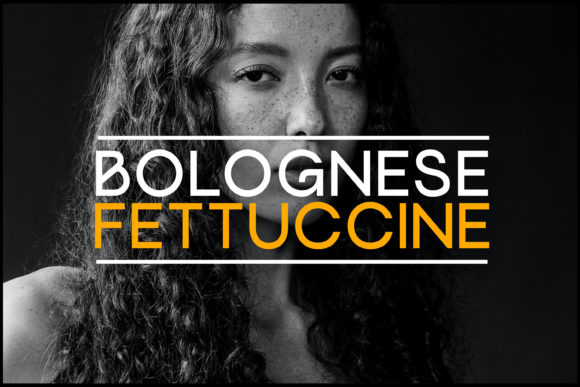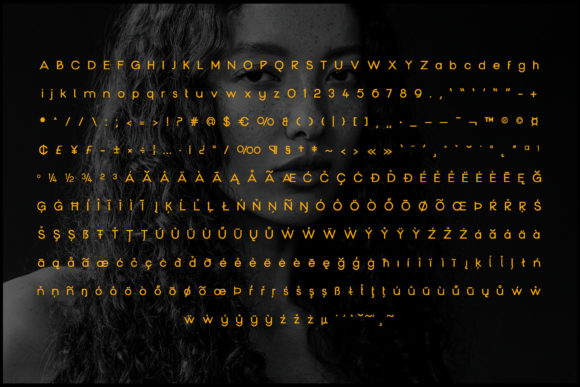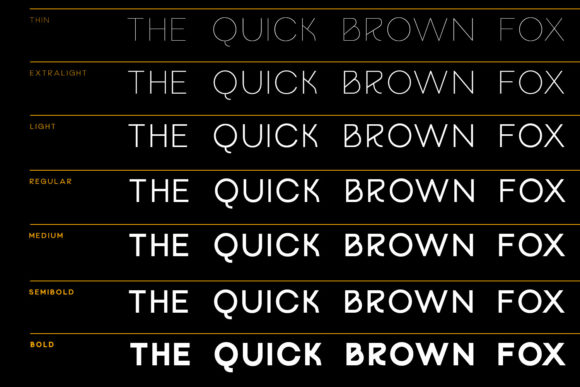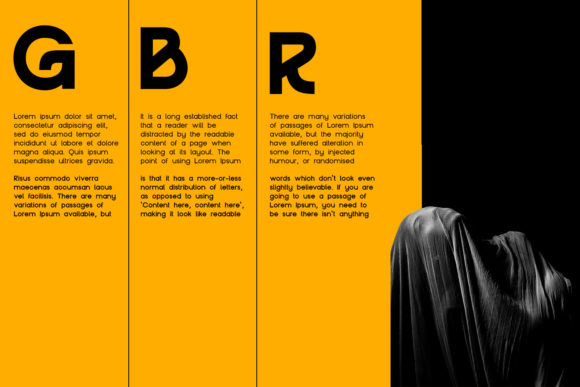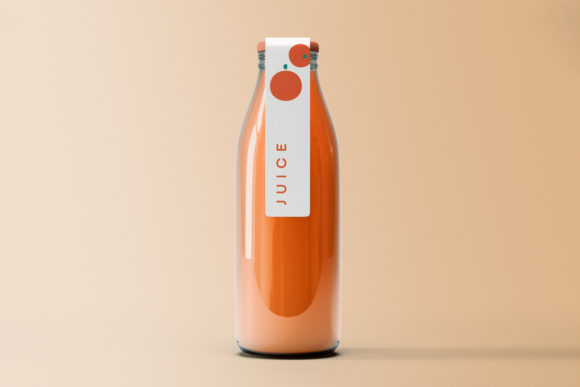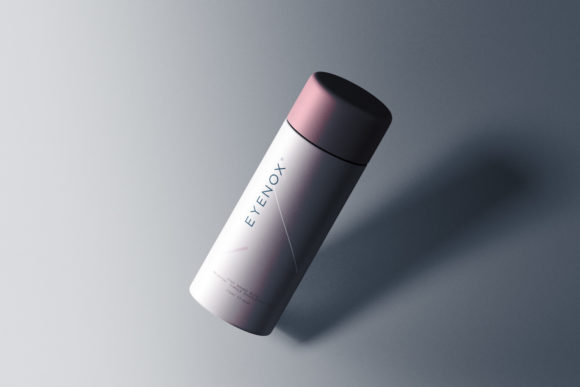
The Perfect Typography for Your Next Creative Project
Do you remember that moment when you see a beautiful design and suddenly you’re inspired to create something of your own? For many designers, that’s exactly what happened when they laid eyes on the Gropio Font. Its clean lines, modern feel, and versatility have captured the hearts of creatives worldwide.
The Gropio Font is a go-to choice for designers looking for a neat and adaptable sans serif font. Whether you’re working on product packaging, branding projects, magazine covers, social media, or even wedding invitations, this font is sure to impress. Its flexibility and simplicity make it a valuable asset for any designer, allowing them to express their creativity without any constraints.
With the Gropio Font, you can elevate your designs to the next level and make a lasting impression on your audience. In this article, we’ll delve into the world of this amazing font and explore its many uses and benefits.
Gropio Font Key Features
- Font Family: Gropio is a sans-serif font family designed for digital use.
- Font Sizes: Gropio is available in various font sizes, ranging from 12pt to 72pt.
- Resolution: Gropio is optimized for high-resolution displays, with a minimum resolution of 300 DPI.
- Unique Characteristics: Gropio features a distinctive geometric shape and a high x-height, making it suitable for body text and digital interfaces.
- Font Styles: Gropio is available in multiple font styles, including regular, bold, italic, and bold italic.
Gropio Font Review
As a designer, I was excited to dive into the Gropio Font and see what it has to offer. Here’s my honest take on this font.
- Unique aesthetic: The Gropio Font has a distinctive, quirky feel that can add a touch of personality to any project.
- Legibility: Despite its unconventional design, the font is surprisingly easy to read, especially at larger sizes.
- Customization options: The font comes with a range of weights and styles, allowing designers to mix and match to suit their needs.
- Consistency issues: At smaller sizes, the font can become inconsistent and difficult to read.
- Limited support: The Gropio Font may not be compatible with all software or systems, which can be a limitation for designers working in multiple environments.
The Gropio Font is a bold and eye-catching choice that can add a unique touch to a project. However, its limitations may make it less suitable for certain applications or designers who prioritize consistency and compatibility. Overall, I’d recommend the Gropio Font for designers looking to add a bit of flair to their work, but with caution and careful consideration of its potential drawbacks.
Gropio Font Practical Application Guide
Tip: Use Gropio Font for titles and headings to add a touch of elegance to your design.
Tip: Use Gropio Font for typography-heavy projects, such as posters, flyers, or brochures.
Tip: Use Gropio Font for presentations, reports, or documents that require a professional touch.
Gropio Font is ideal for:
- Posters and flyers for events or promotions
- Use Gropio Font as the title font for the book cover, with a larger size and bold style to make it stand out.
- Combine Gropio Font with a serif font for the author’s name and book description, creating a nice contrast between the two.
- Use a pastel color palette to create a soft and whimsical atmosphere.
- Add some subtle texture to the background to give it a sense of depth.
- Use Gropio Font as the primary font for all branding elements, including logos, business cards, and letterheads.
- Combine Gropio Font with a sans-serif font for headings and titles, creating a clear hierarchy of information.
Q: What is the recommended font size and line height for optimal readability with Gropio Font?
For optimal readability, we recommend using a font size between 12pt and 18pt, with a line height of at least 1.2 to 1.5 times the font size. This will ensure that the text is clear and easy to read, even at smaller font sizes.